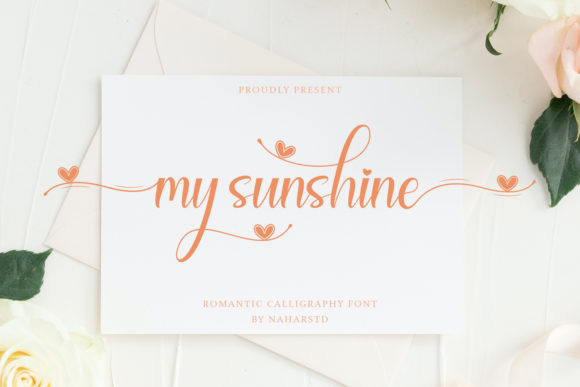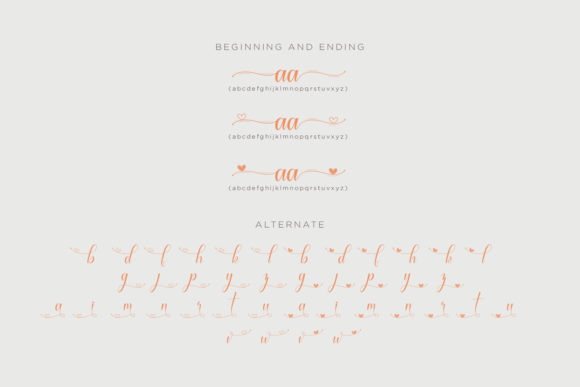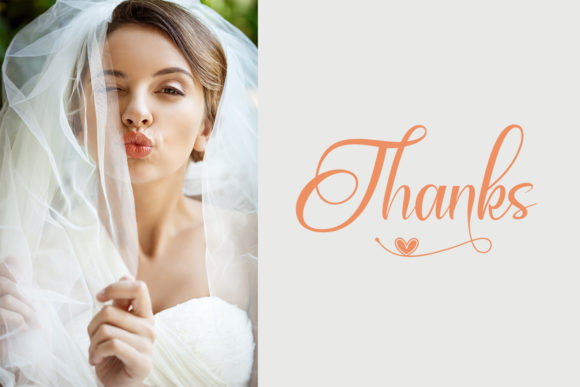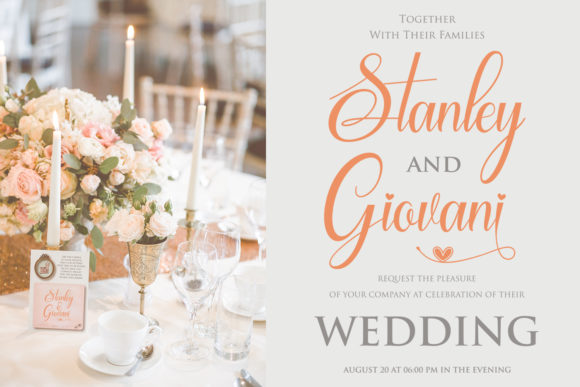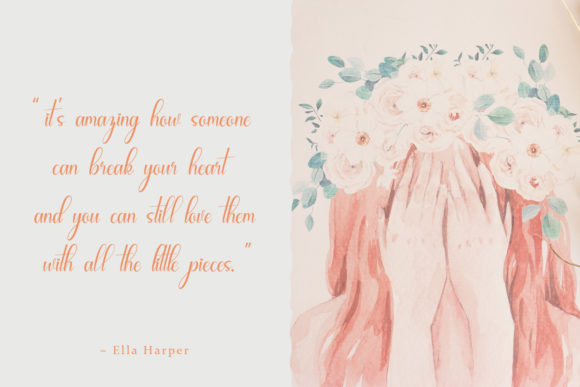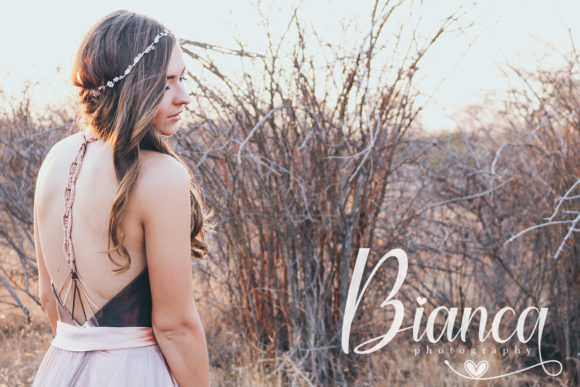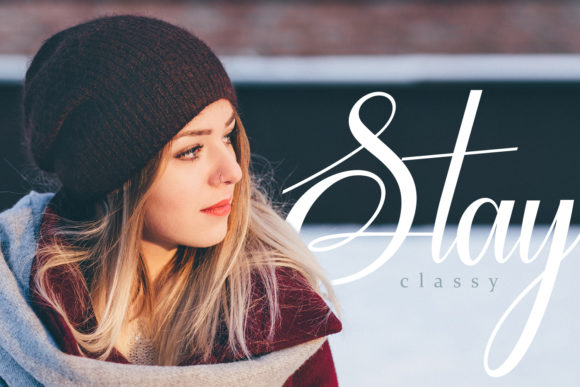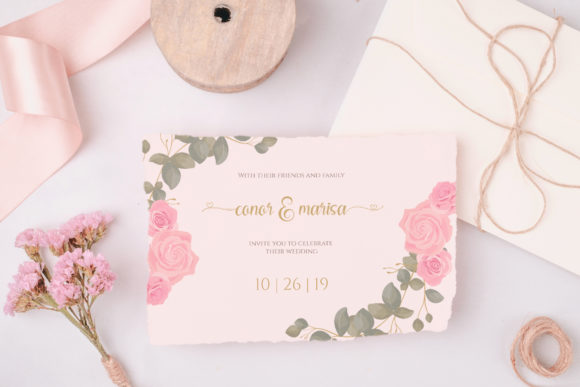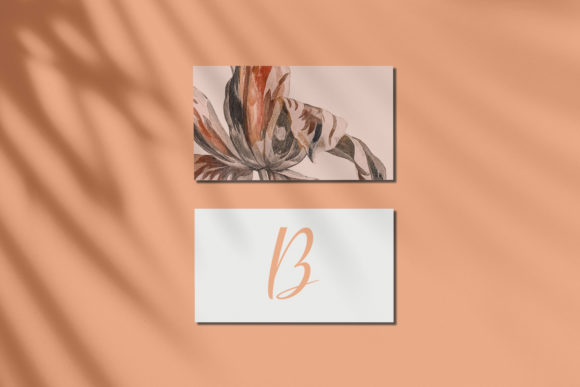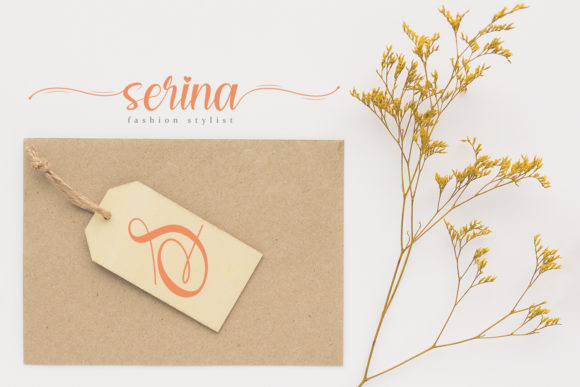
My Sunshine Font
About My Sunshine Font
My Sunshine feels equally charming and romantic. It looks stunning on wedding invitations, thank you cards, quotes, greeting cards, logos, business cards and every other design which needs a handwritten touch.